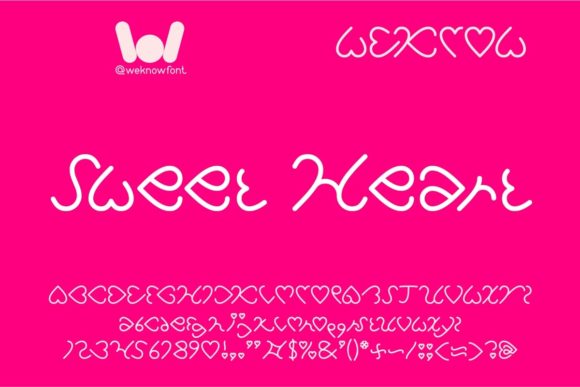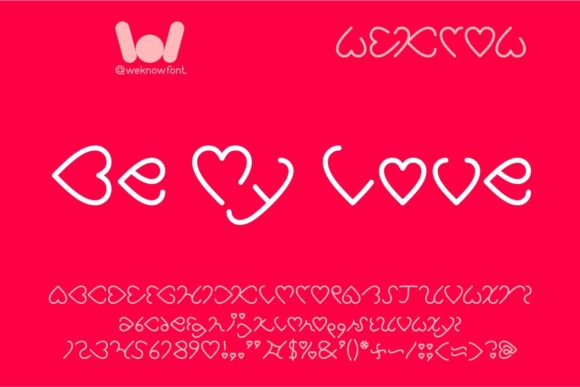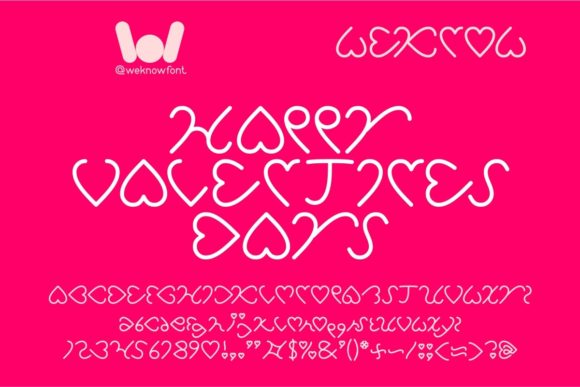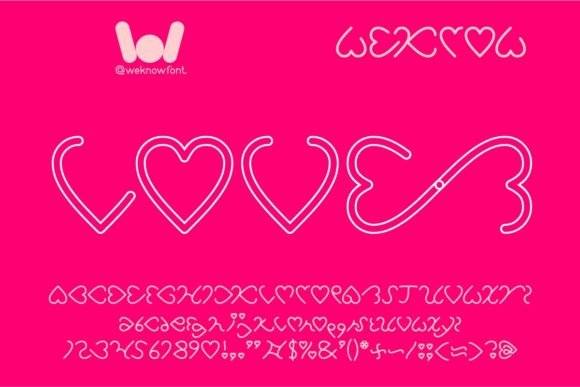
Love at First Sight: Introducing the I Love You Font
Have you ever been scrolling through your favorite design platform, and suddenly, you stumble upon a project that makes your heart skip a beat? For many designers, that moment of creative inspiration can spark an entire project. For us, it was discovering the perfect font to convey love and affection. And that’s exactly where the I Love You Font comes in – a cute and romantic display font that’s sure to capture the essence of your creative vision.
Suitable for a wide range of projects, from logos to posters, music covers to book covers, the I Love You Font is a valuable addition to any designer’s toolkit. Its versatility and charm make it an ideal choice for designers who want to add a touch of romance to their work. With the I Love You Font, you can express your creativity and convey your emotions in a way that’s both authentic and eye-catching.
I Love You Font Key Features
- Font Family: A custom-designed font family with a unique and playful aesthetic.
- Unique Characteristics: Distinctive, rounded shapes and whimsical flourishes give the font a charming and romantic feel.
I Love You Font Review
Overall, I’d say the I Love You Font is a unique and fun choice for any project that needs a playful touch. Here’s what works well: ✨
- Its cursive style gives off a romantic and whimsical vibe, perfect for weddings, Valentine’s Day, or any other occasion that needs a touch of love.
- The font is highly customizable, allowing you to adjust its size, color, and spacing to fit your design needs.
- It’s available in various weights and styles, making it easy to find the perfect match for your project.
However, there are some limitations to keep in mind: ⚠️
- The font may not be suitable for formal or professional projects, as its playful nature may not be taken seriously.
- Some users have reported issues with font rendering on certain devices or browsers, which may affect its appearance.
- The font’s cursive style can make it difficult to read in certain contexts, especially in small sizes or when used in body text.
Overall, I think the I Love You Font is a great choice for designers who want to add a touch of personality and whimsy to their projects. Just be mindful of its limitations and use it thoughtfully.
The I Love You font is ideal for creating romantic and playful designs. Some common use cases include:
- Wedding invitations and announcements.
- Valentine’s Day cards and gifts.
- Social media graphics and advertisements.
- Personalized gifts and merchandise.
Remember to use the font in moderation to avoid overwhelming the design. Balance the font with other elements to create a visually appealing and effective design.